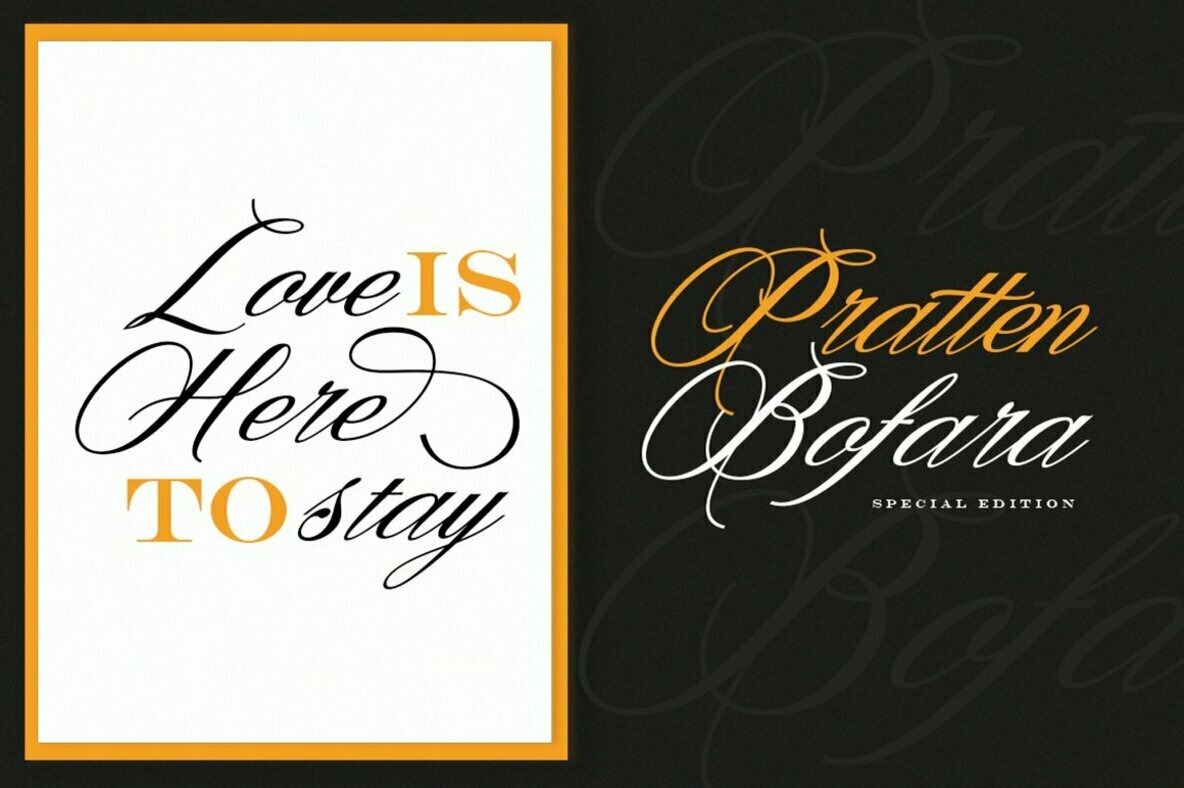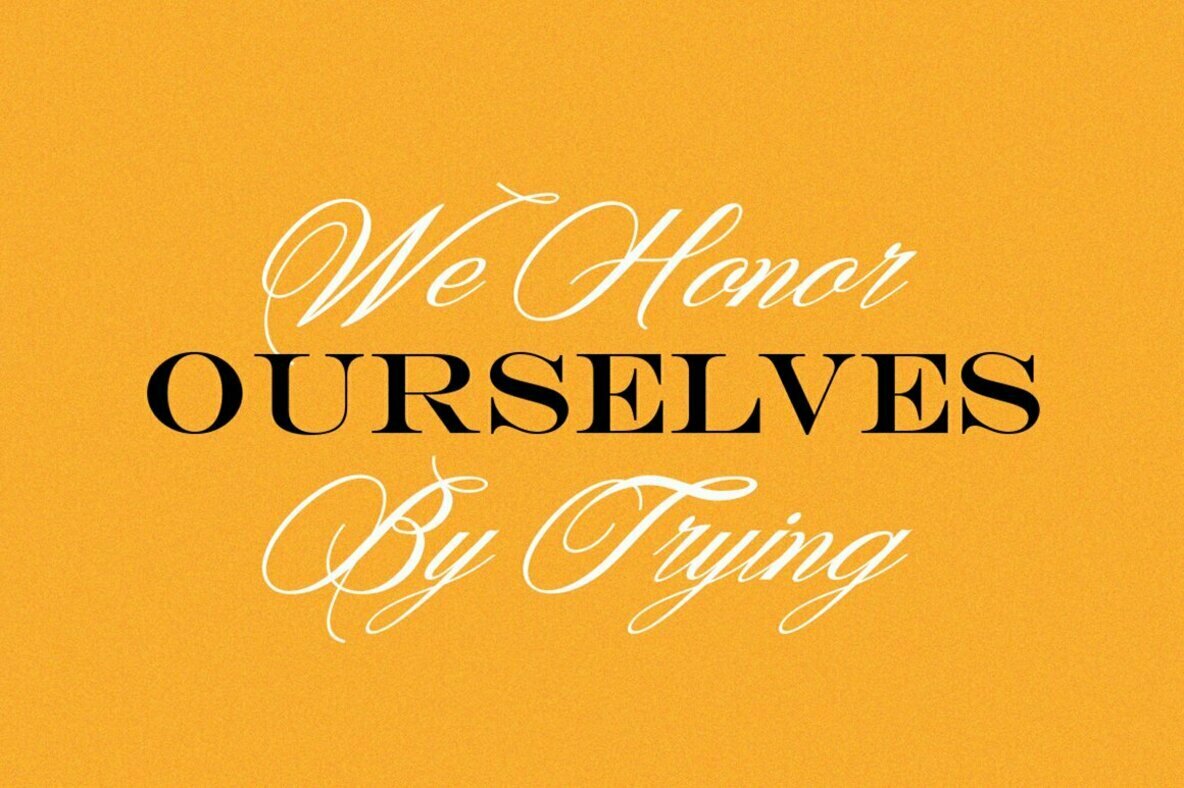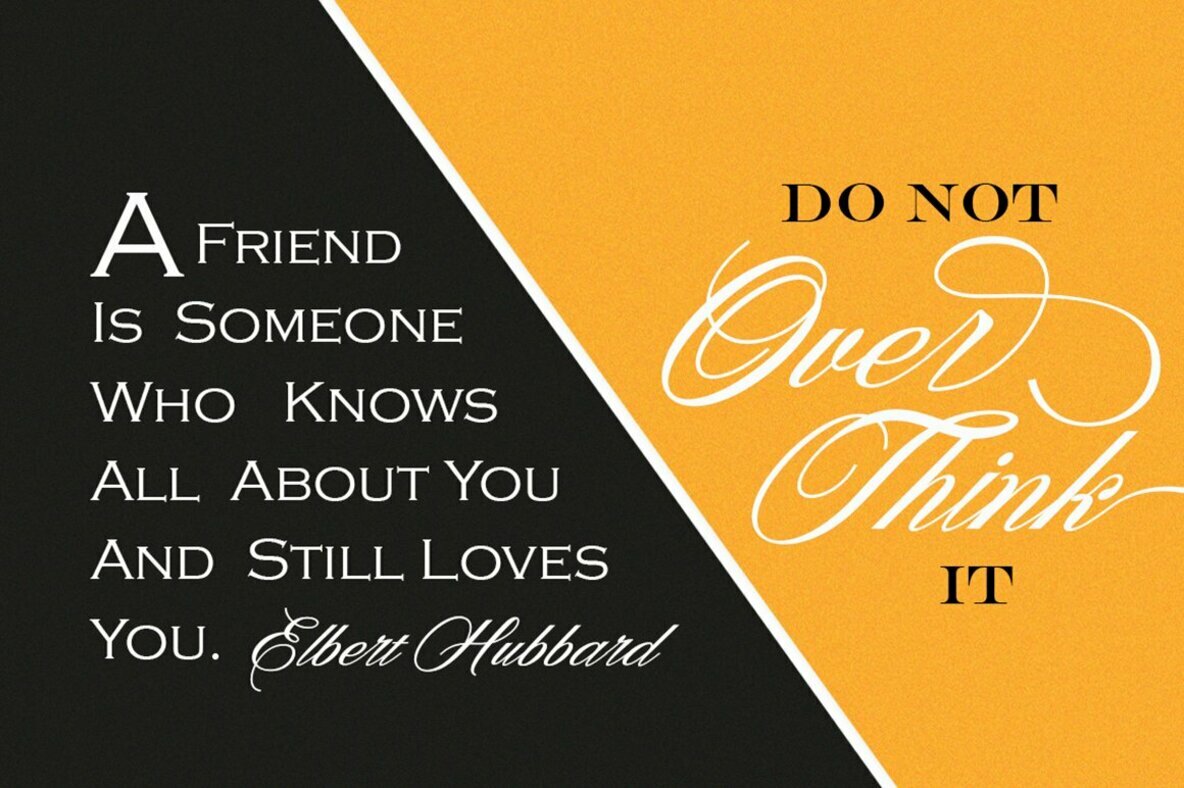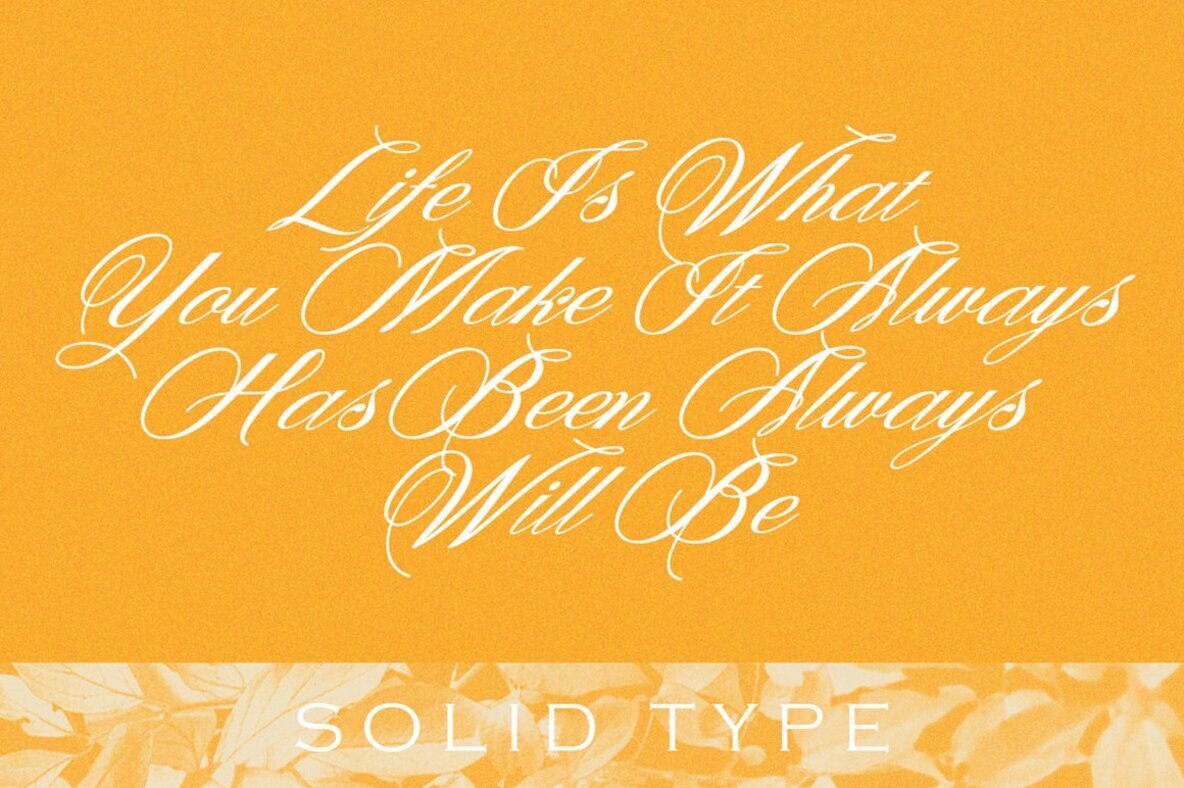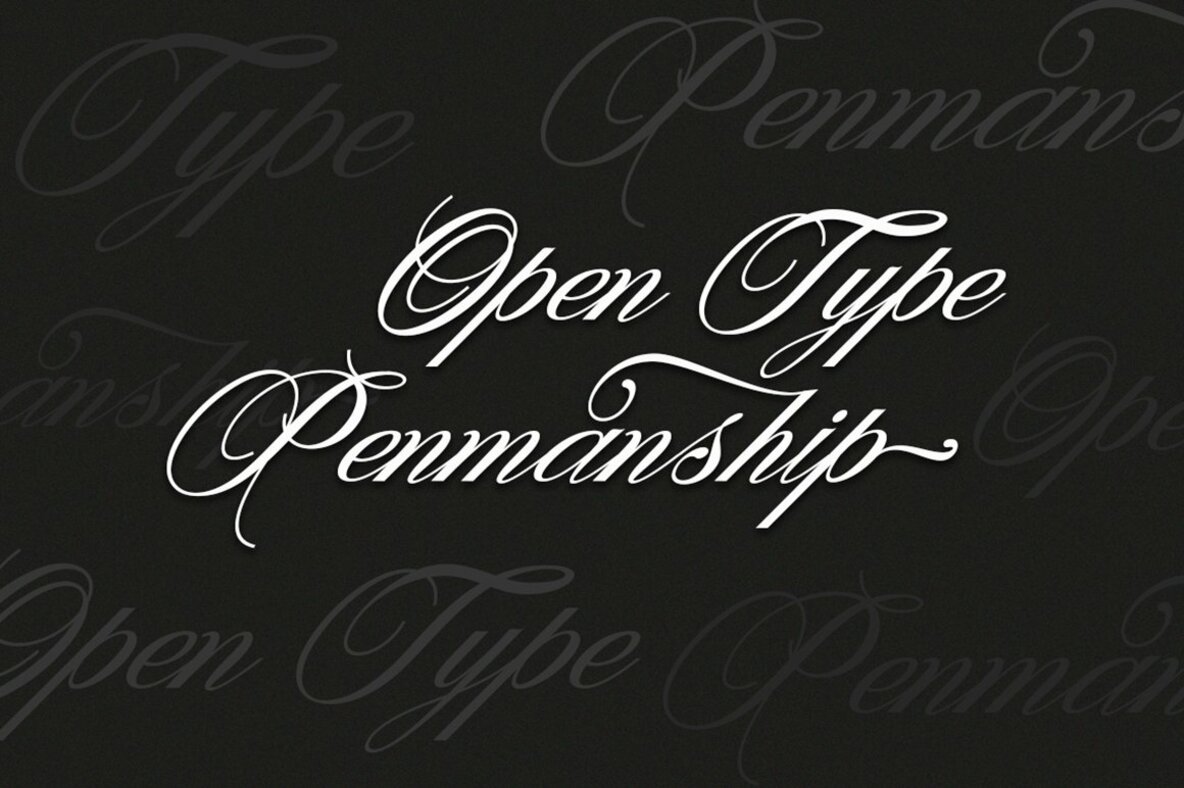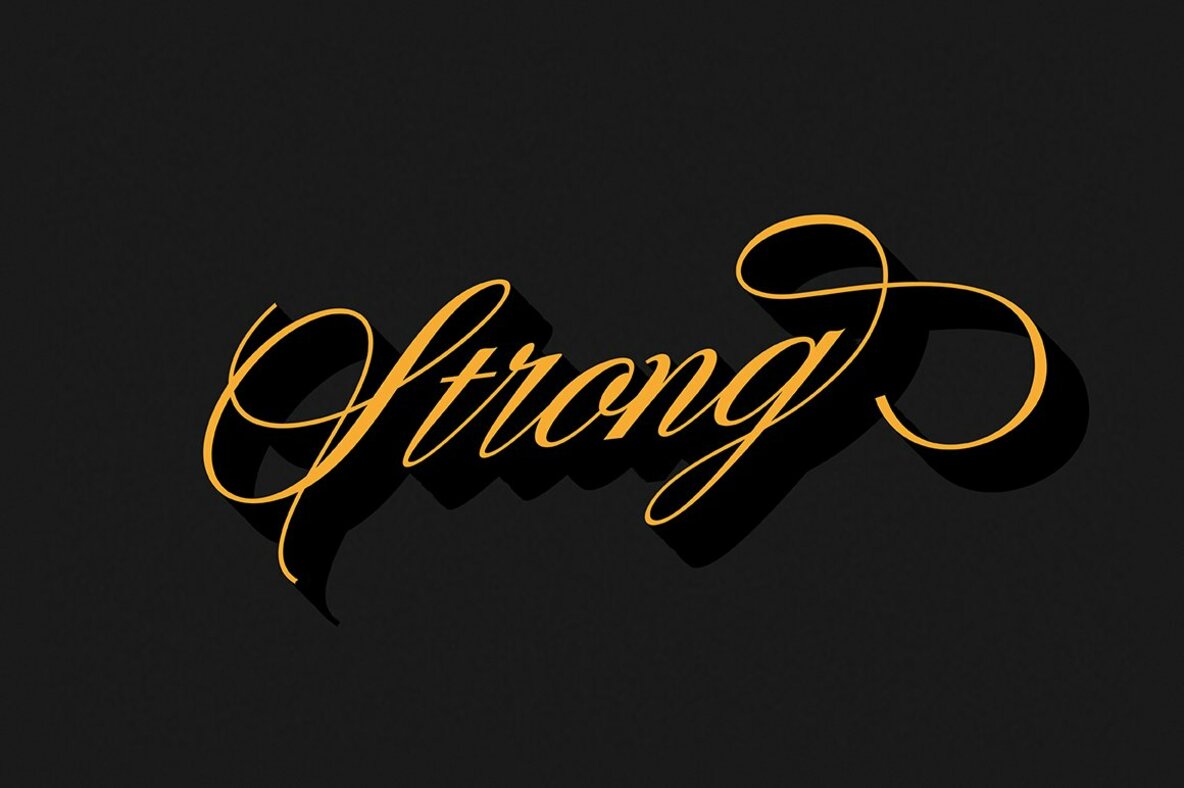
Denita Script
The Denita Script from Solidtype Studio is a calligraphy font that combines aesthetic beauty with remarkable legibility. Its timeless elegance makes it an excellent choice for diverse applications, including logos, wedding invitations, t-shirts, letterheads, signage, news graphics, posters, and badges. Features: To take full advantage of its OpenType stylistic alternates, ensure you are using compatible software such as Adobe Illustrator CS, Adobe InDesign, CorelDraw X6-X7, or Microsoft Word 2010 and later.Denita Script: Elegant Calligraphy Typeface